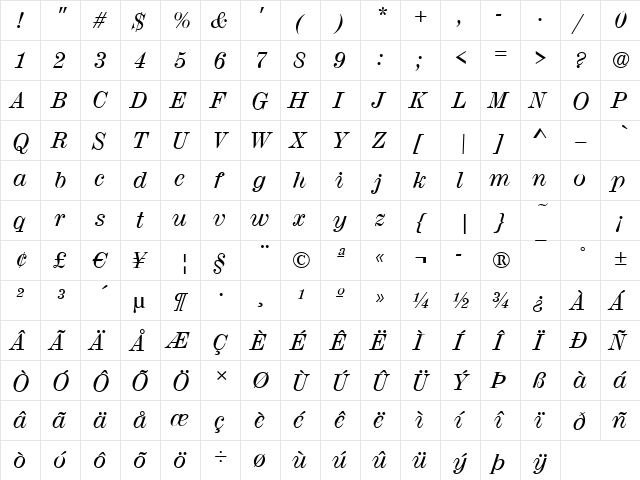
Madeira Italic
Design Context for Madeira Typeface
Madeira takes a measured approach to typography — its balanced proportions and neutral character make it a reliable workhorse for both digital and print work. The slanted form adds forward momentum and visual energy.
Pro Tip: Use Madeira for emphasis, pull quotes, and subheadings where its slanted energy can add rhythm to the layout.